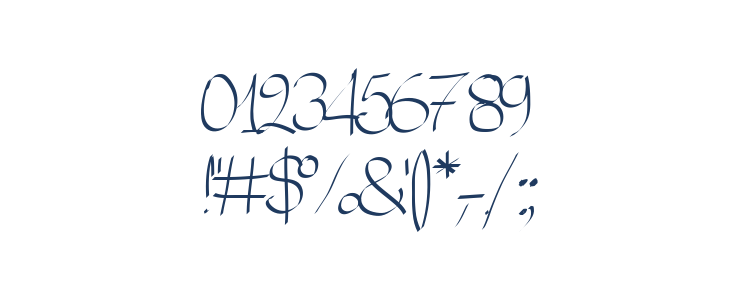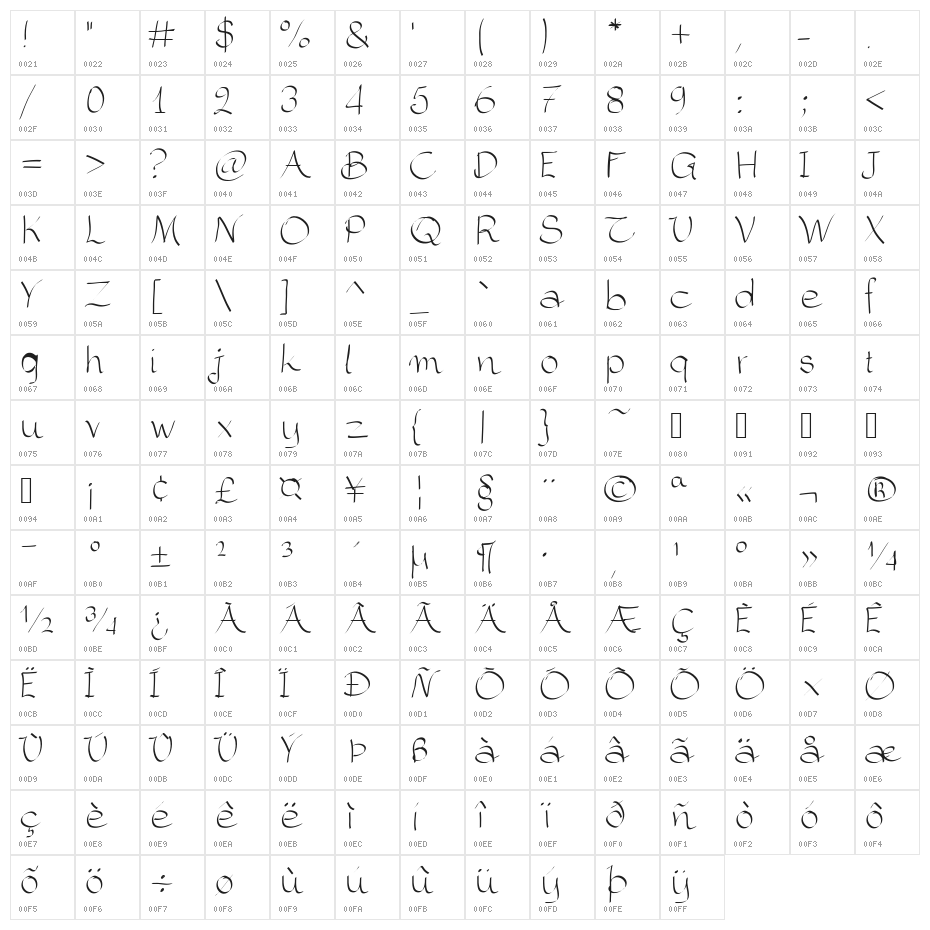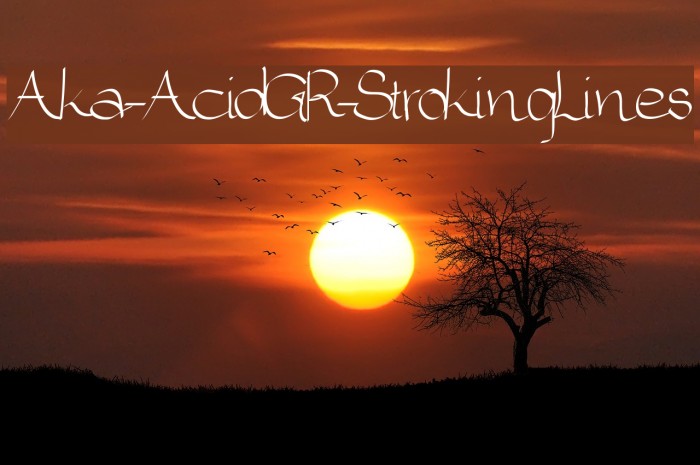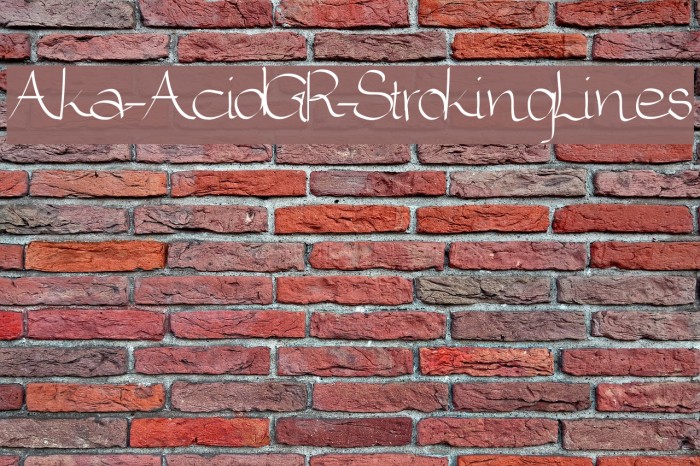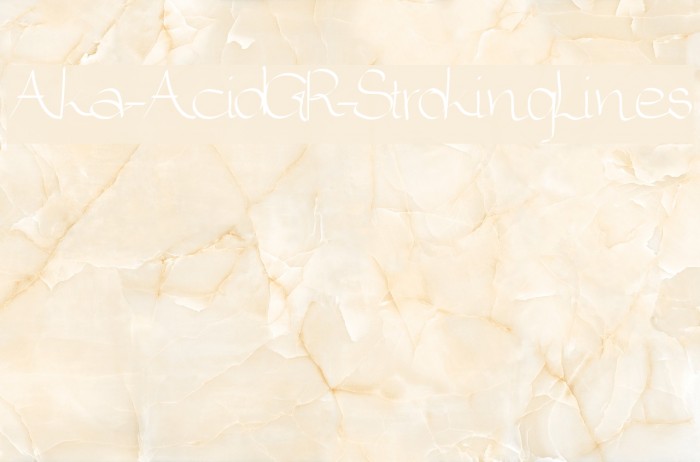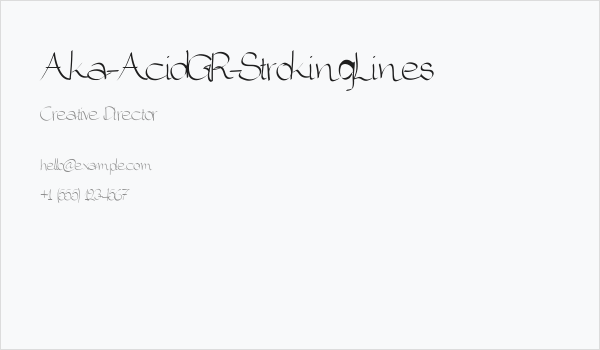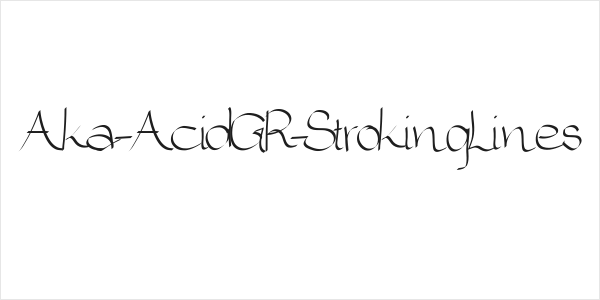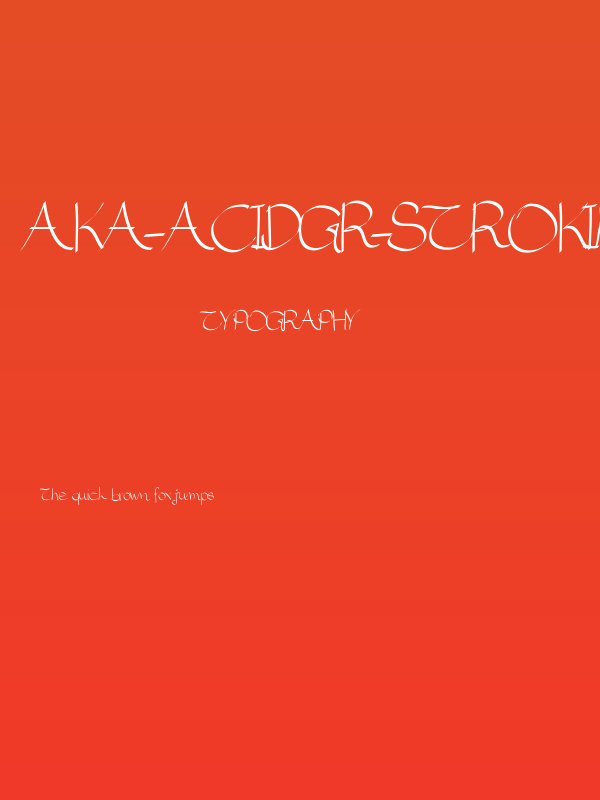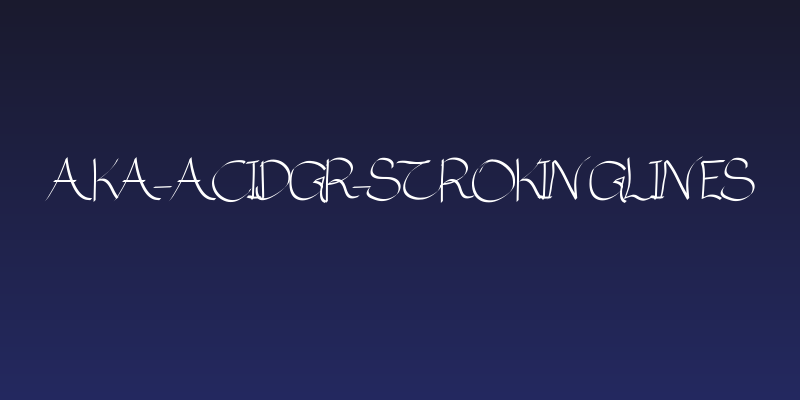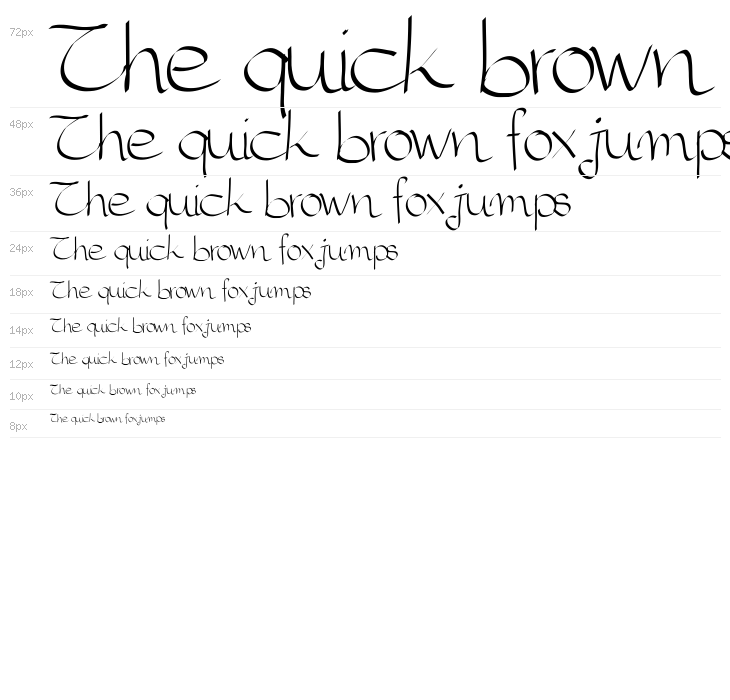
Aka-AcidGR-StrokingLines Font
Aka-AcidGR-StrokingLines Description
This font features a unique and artistic design with a calligraphic flair. The characters are crafted with a combination of sharp, angular strokes and smooth, flowing curves, creating a dynamic and expressive appearance. The uppercase letters are bold and striking, while the lowercase letters maintain a more fluid and elegant style. The numbers and special characters follow the same artistic theme, adding to the font's cohesive look. This font's distinctive style makes it ideal for creative projects that require a touch of sophistication and flair.
| Overall Style | Artistic, Calligraphic |
| Use Case | Headlines, Artistic designs, Branding |
| Proposed Projects | Ideal for creative projects such as invitations, posters, branding, and artistic designs. |